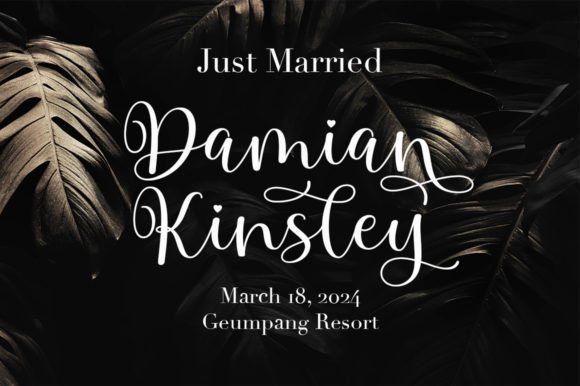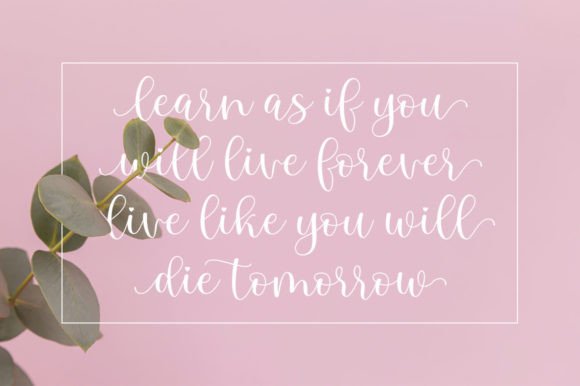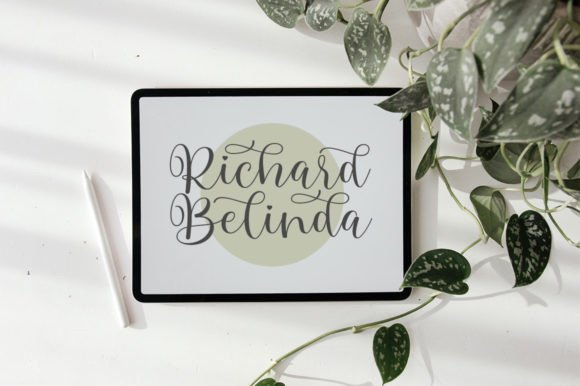
Introduction to Mahesia Font
As a designer, there’s nothing quite like the thrill of discovering a new font that perfectly captures the essence of your creative project. It’s that moment when all the pieces come together, and your design transforms from ordinary to extraordinary. For me, that moment happened when I stumbled upon the Mahesia Font, a stunning handwritten script that has since become a go-to resource for all my design needs.
The Mahesia Font is more than just a pretty face; it’s a valuable addition to any designer’s toolkit. With its elegant, high-quality design, it’s perfect for creating personalized elements that add a touch of sophistication to wedding invitations, thank you cards, and greeting cards. And the best part? It’s available for free download, making it an accessible design resource for designers of all levels.
Whether you’re working on a commercial project or a personal creative endeavor, the Mahesia Font is sure to elevate your design to the next level. With its transparent background and versatile style, it’s an ideal choice for designers looking to add a unique touch to their work. In this article, we’ll delve deeper into the world of Mahesia Font and explore its many uses and benefits.
Key Features of Mahesia Font
- Features a transparent background, allowing for seamless integration with custom designs and backgrounds
- Designed with a unique aesthetic, making it an excellent choice for designers looking for a distinctive font
- High-resolution design, suitable for use in print and digital applications
Honest Review: Mahesia Font
I recently had the chance to experiment with the Mahesia Font, and I must say it’s a great addition to any designer’s toolkit. ✨ Its elegant, sophisticated design makes it perfect for high-end creative projects.
One of the things I appreciate about the Mahesia Font is its versatility. It can be easily paired with other fonts to create a unique and stylish look. Additionally, the font is available for free download, making it a great resource for designers on a budget.
Here are some of the key features I like about the Mahesia Font:
- High-quality design with a transparent background, making it easy to layer and manipulate.
- Wide range of applications, from corporate branding to editorial design.
- May not be suitable for bold or playful designs, as it’s more suited to elegant and sophisticated projects. ⚠️
- May require some adjustment to the font size and spacing to achieve the desired look.
Overall, I’m impressed with the Mahesia Font and would recommend it to designers looking for a high-quality, elegant font for their creative projects.
Tips for Getting the Most Out of Mahesia Font
For optimal results, use the Mahesia Font on a transparent background to make your design stand out. You can also use it as a design resource for creative projects like brochures, flyers, and business cards.
Mahesia Font is ideal for use in free download templates, high-quality design projects, and creative endeavors. It’s perfect for designers who want a unique and stylish font for their work.